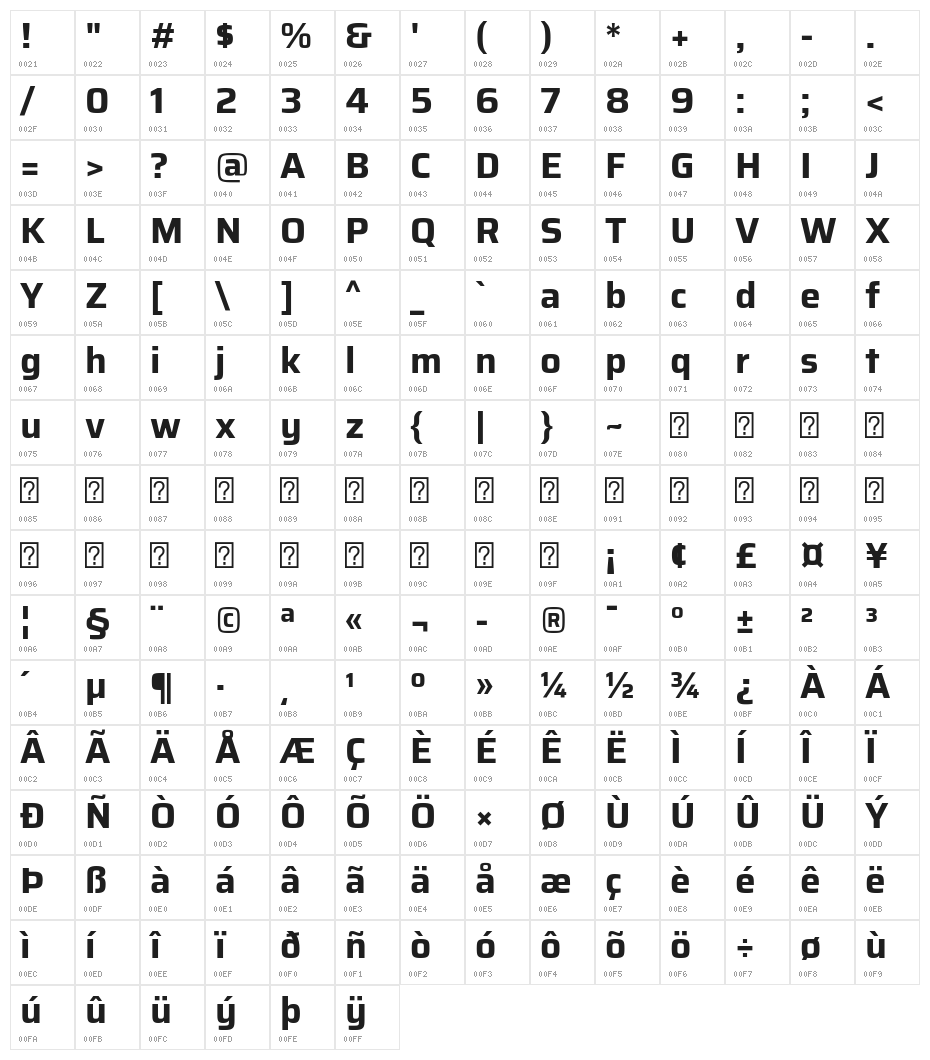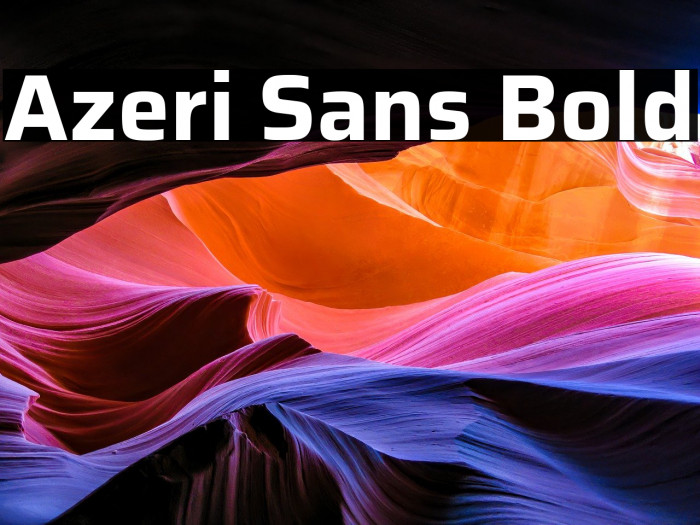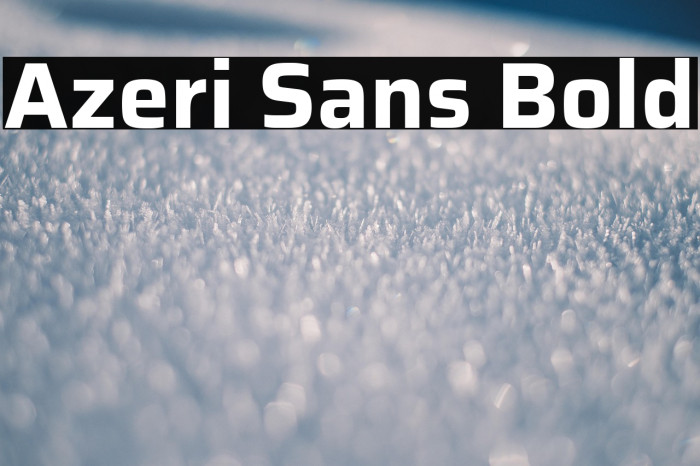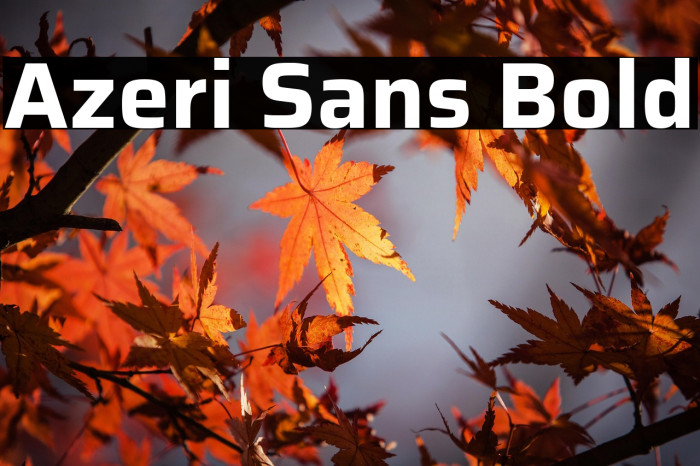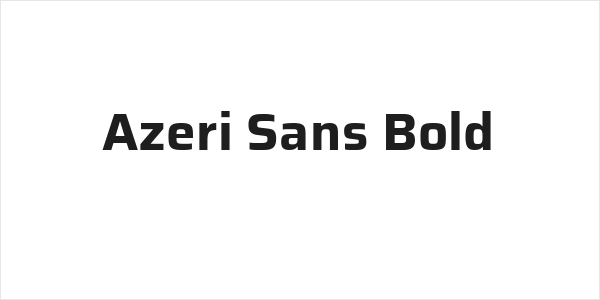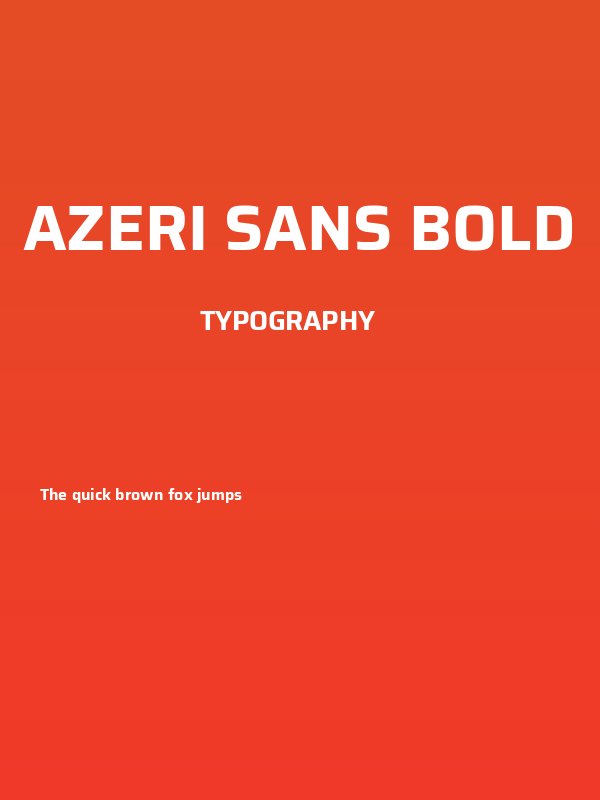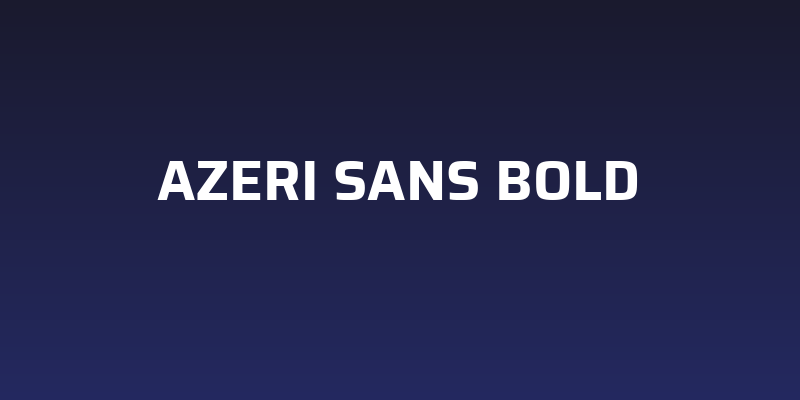
Azeri Sans Bold Font
Azeri Sans Bold Description
This font exhibits a bold and modern sans-serif style, characterized by clean lines and a robust structure. The uppercase and lowercase letters maintain a consistent weight, providing a strong visual impact. The numerals are clear and easily distinguishable, while the special characters are well-defined, making this font versatile for various applications. Its geometric shapes and uniform stroke widths contribute to its contemporary appearance, suitable for digital and print media.